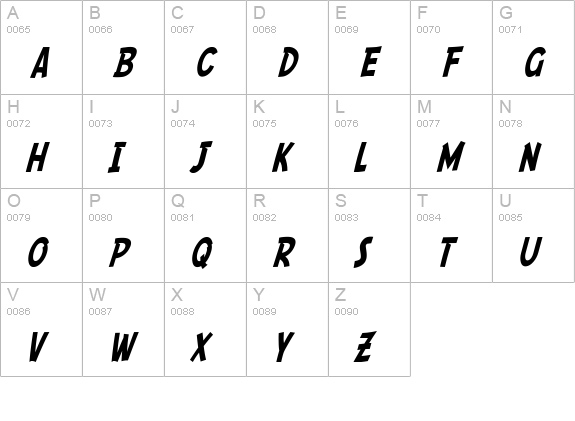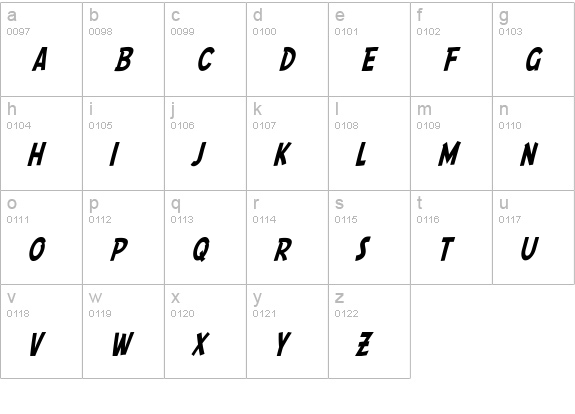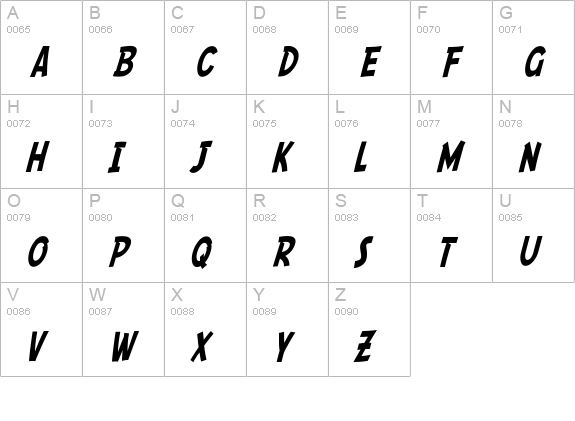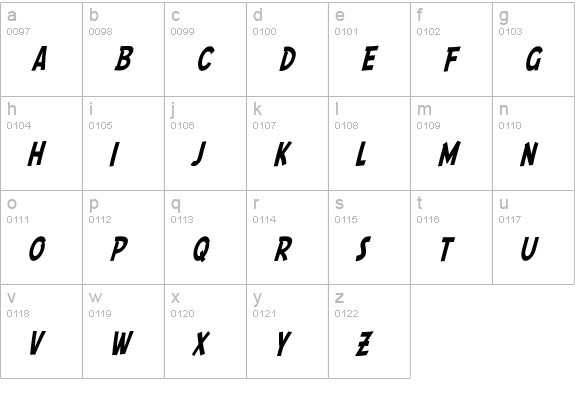
SF Comic Script Condensed Font Details
SF Comic Script Condensed is a distinctive, condensed-width variant in the SF typeface family \xE2\x80\x94 well suited to design and typography projects.
SF Comic Script Condensed is a playful and energetic font that brings comic book vibes to any design project. With its condensed and slightly slanted letterforms, this font exudes a sense of movement and excitement, making it perfect for capturing the dynamic nature of comic book dialogue or adding a touch of fun to any design. Whether you're working on a comic book, a poster, a logo, or any other creative project, SF Comic Script Condensed is sure to bring a burst of energy and personality. Its clean and legible letterforms ensure that your message will be easily conveyed, while its unique style adds a touch of whimsy and charm. And the best part? SF Comic Script Condensed is available for free download at FontsMarket.com. Yes, you heard that right - this amazing font can be yours without spending a dime. So go ahead and unleash your creativity with SF Comic Script Condensed, the font that combines the excitement of comic books with the convenience of being freely available to download.